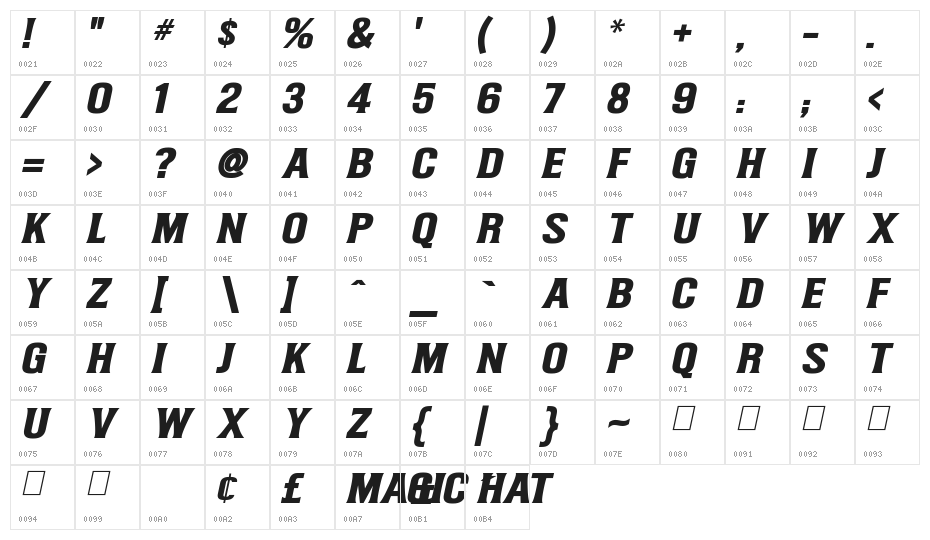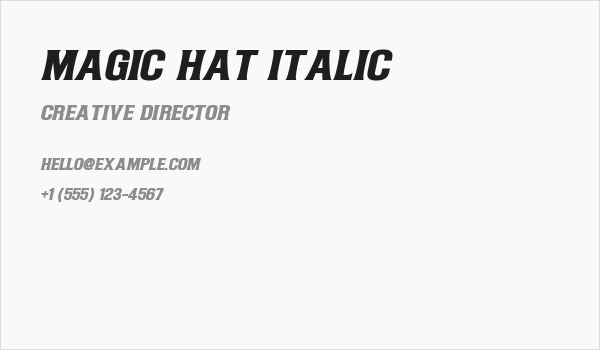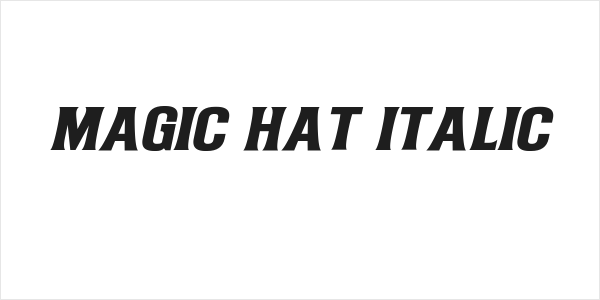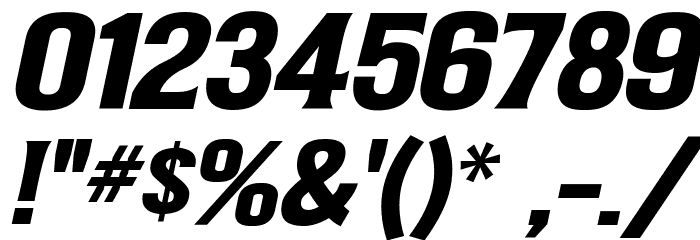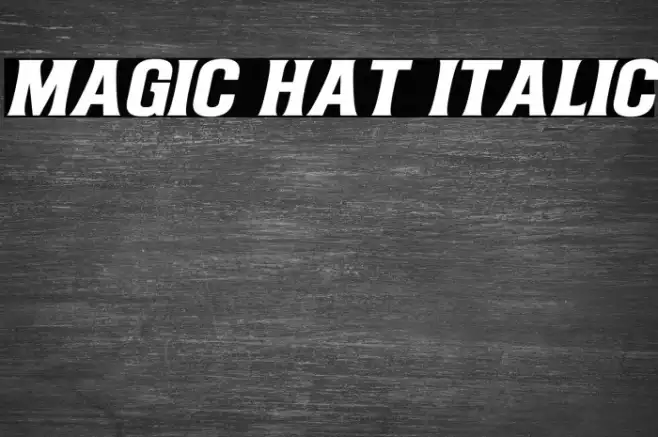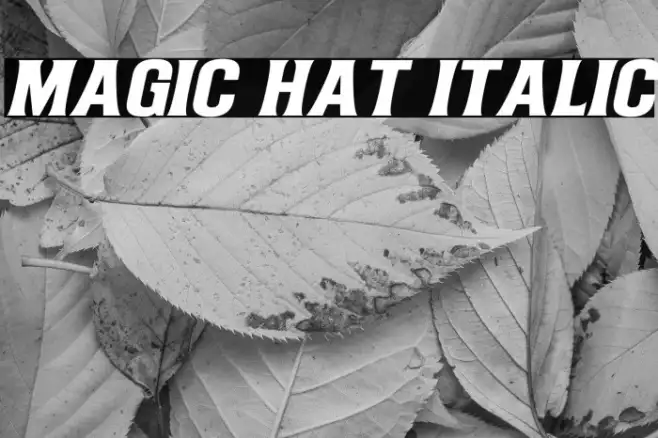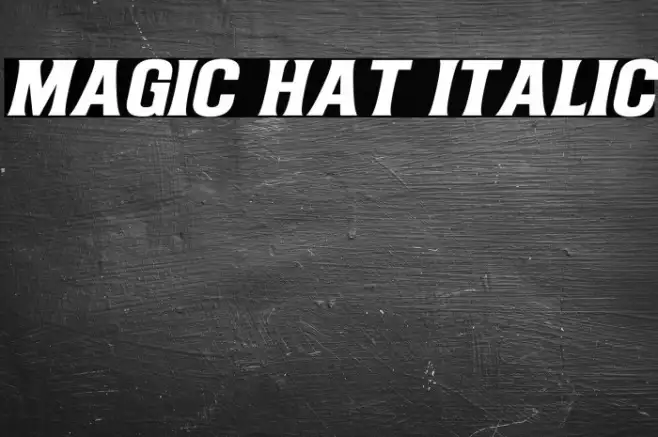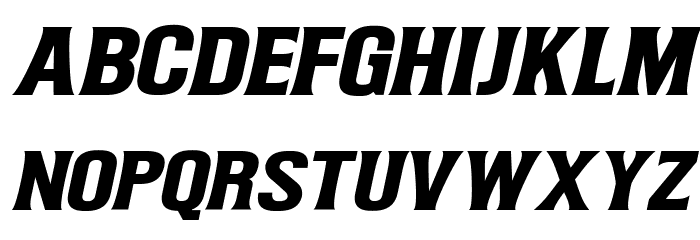
Magic Hat Italic Font
This font features a bold and dynamic italic style, characterized by its strong, slanted letterforms that convey a sense of motion and energy. The uppercase and lowercase letters are designed with a consistent weight, providing a cohesive look across the alphabet. The numerals are equally bold, ensuring readability and impact. Special characters are included, maintaining the same bold and italicized style, making this font versatile for various applications. The overall design is modern and assertive, suitable for projects that require a strong visual presence.
| Proposed Projects | Ideal for sports branding, dynamic posters, headlines, and any design needing a bold statement. |